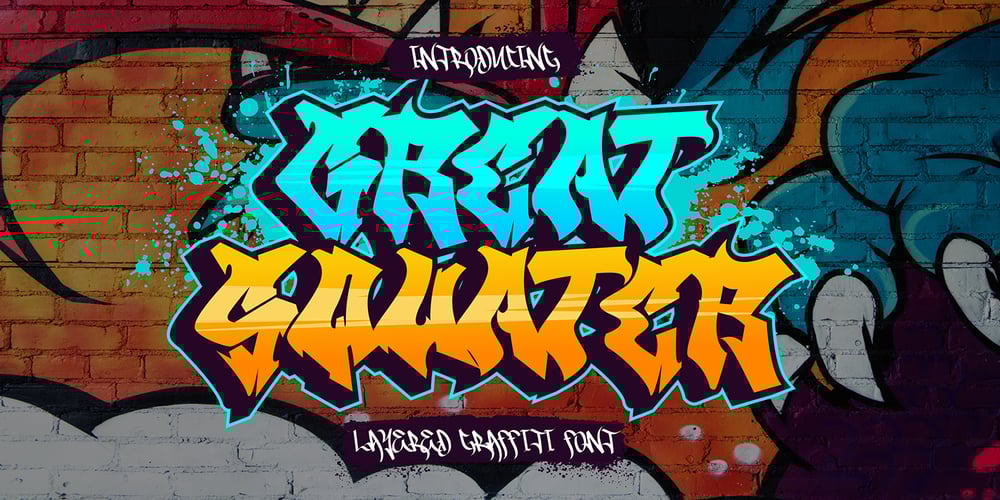
Great Squater Graffiti Font Family was designed by Sipanji and published by Sipanji21. Great Squater Graffiti contains 2 styles and family package options. “Great Squater” is a graffiti font with two layers: solid and shadow. By using both of these layers in your design, you can create a three-dimensional (3D) effect on your text. Fonts like this are often used in street art, posters, or other designs that aim to add depth and dimension to their typography.With “Great Squater,” you have the flexibility to make your text appear more dynamic and three-dimensional by using different layers. This allows you to customize the text’s appearance to fit your design concept.